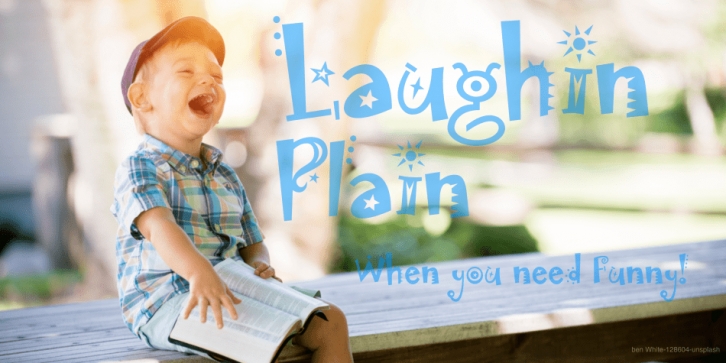
Designed by Andrew Smith, Laughin is a display and novelty font published by FontHaus.
Designed by Andrew Smith this bouncy and playful headline font does not take itself seriously. Perfect for headlines, children’s books or on the web.